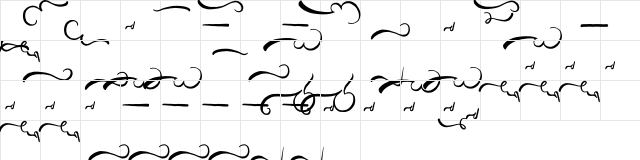
Aisy Khadijah Swashed Regular
Design Context for Aisy Khadijah Swashed Typeface
Aisy Khadijah Swashed flows with the natural rhythm of handwritten lettering, making it ideal for designs that call for warmth and personal expression.
Font Pairing: Combine Aisy Khadijah Swashed with a simple geometric sans for maximum contrast — the tension between flowing curves and clean structure is a classic typographic pairing.
Pro Tip: Use Aisy Khadijah Swashed for short runs of text — names, titles, or taglines. Extended body copy in script faces tires the eye quickly.